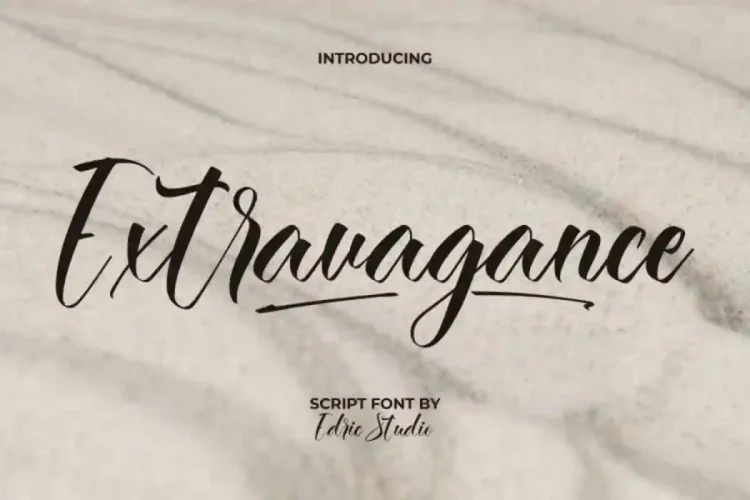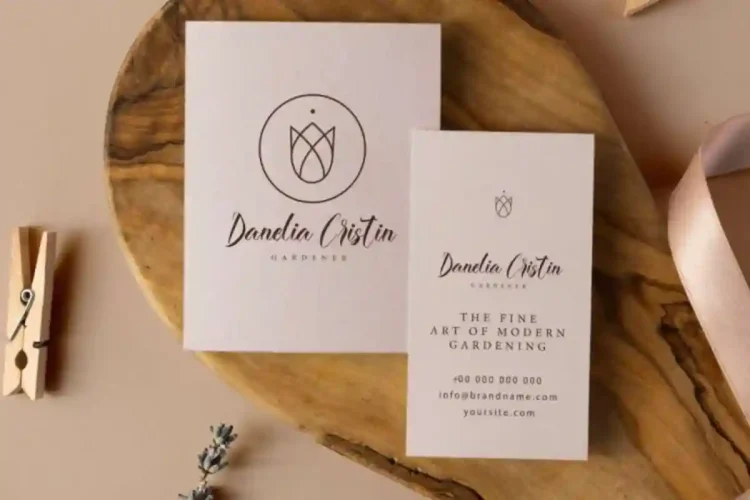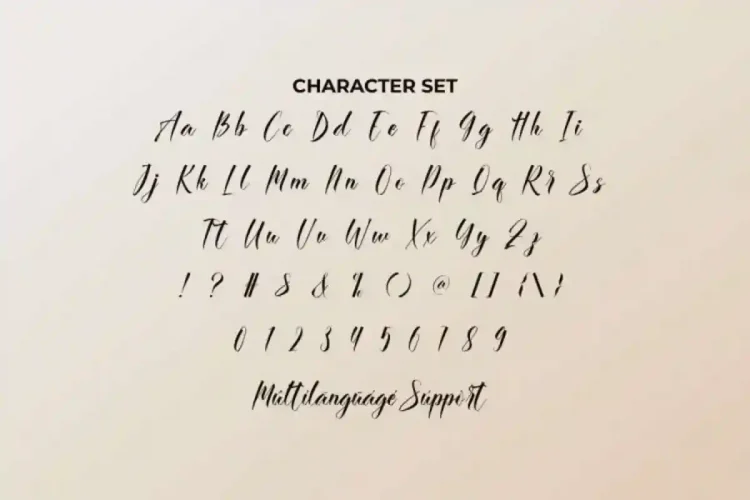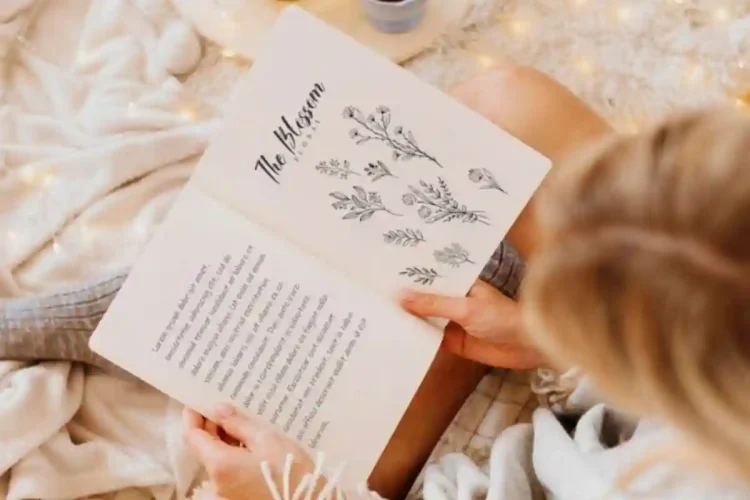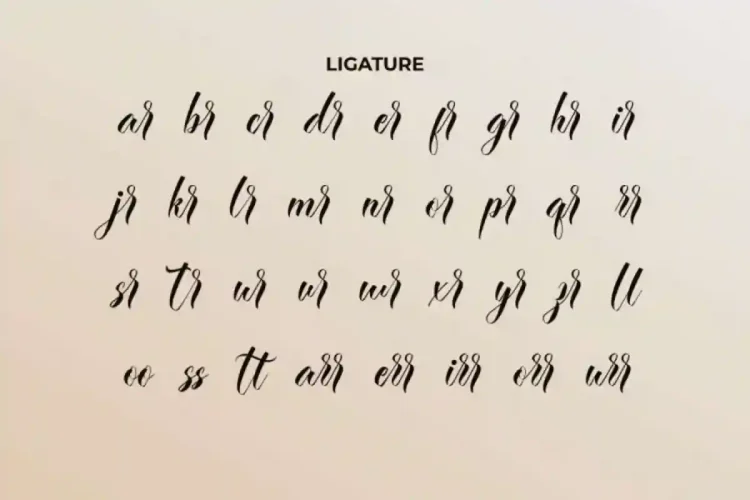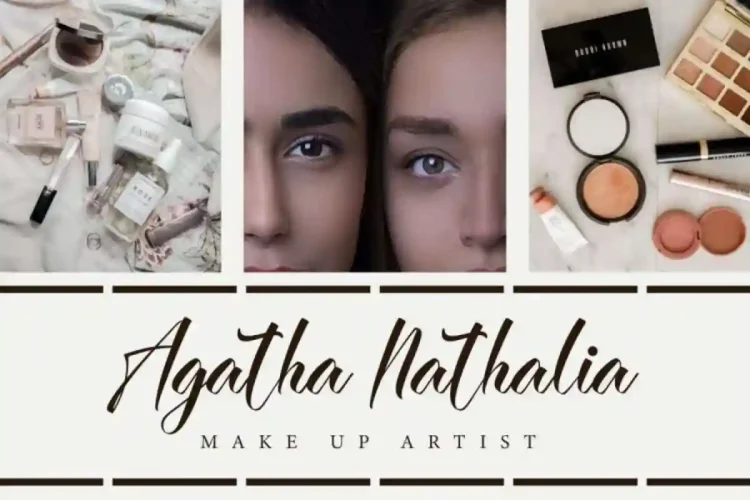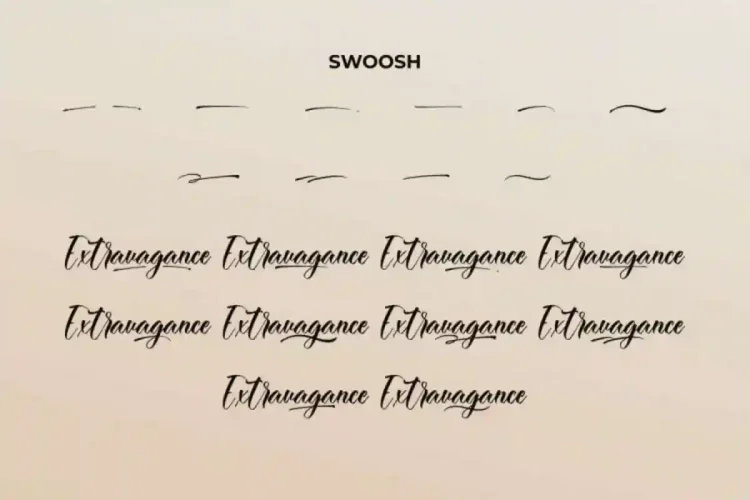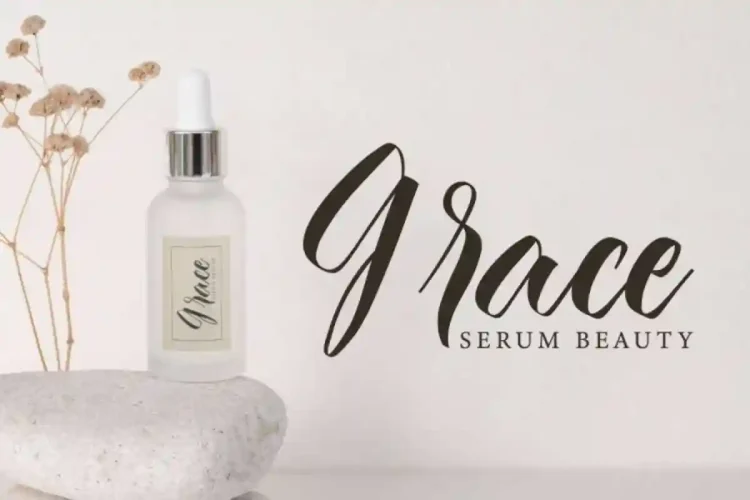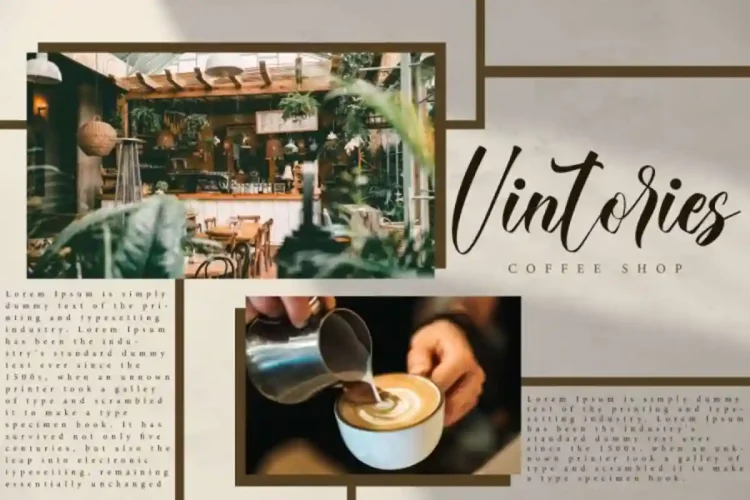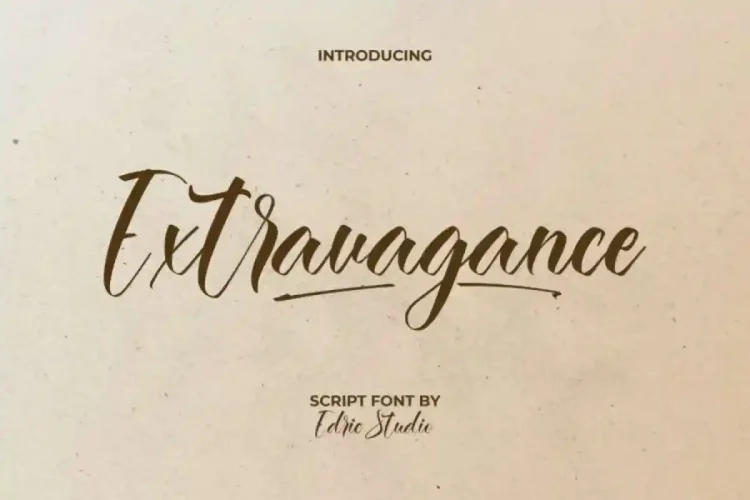
Extravagance Script Font a beautiful script typeface created by EdricStudio with a distinctive touch of elegance.
Extravagance Script Font comes with a full set of Uppercase and Lowercase Basic Characters, Number, a large range of Punctuation and Symbol. It has a stunning characters set, perfectly managed with well spaced and kerning. Extravagance Script Font will be great for any projects (with extended license) including : brand logo, brochure, flyer, header, label, mockup design, product packaging, signage, stationery, website, etc.
Extravagance Script Font is a playful typeface with unique decoration in each character. It’s tested to work well in the Adobe Apps (Illustrator, Adobe InDesign, Adobe Photoshop) even work on Microsoft Word. PUA Encode Characters means you can access all characters easily – Fully accessible without additional design software.